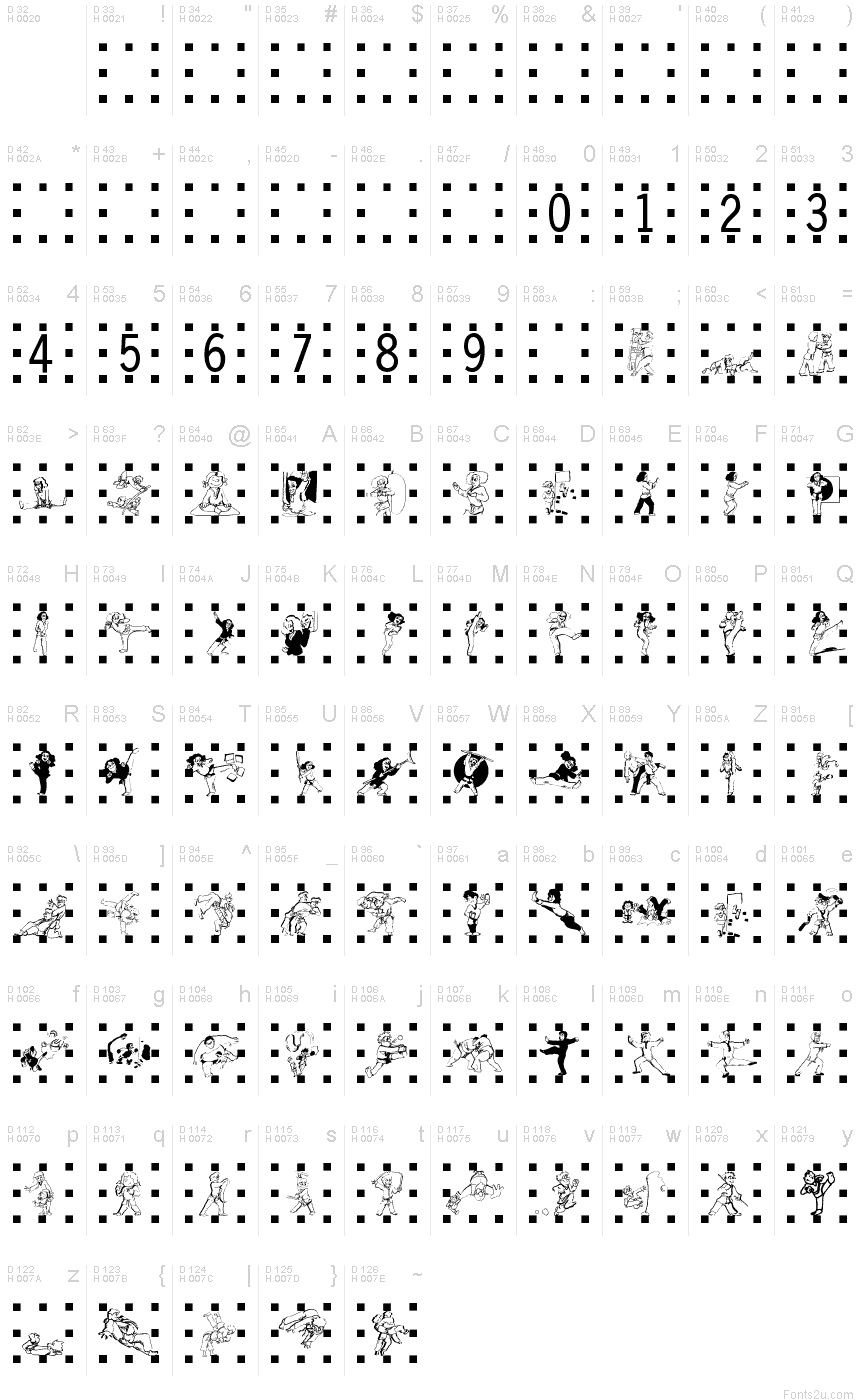
Kampfsport by M. Klein is a free cartoon martial arts dingbat font built from lively hand-drawn figures caught in an assortment of punches, kicks, blocks, and training poses. Loose outlines and exaggerated gestures make every character comic and immediate.
Children's activity books are an especially good fit, with the figures also useful for sports posters, martial arts event flyers, and playful merchandise aimed at younger audiences. Recurring gloves, raised fists, bent knees, and airborne movements make the set useful as an energetic sequence of small illustrations rather than conventional lettering.